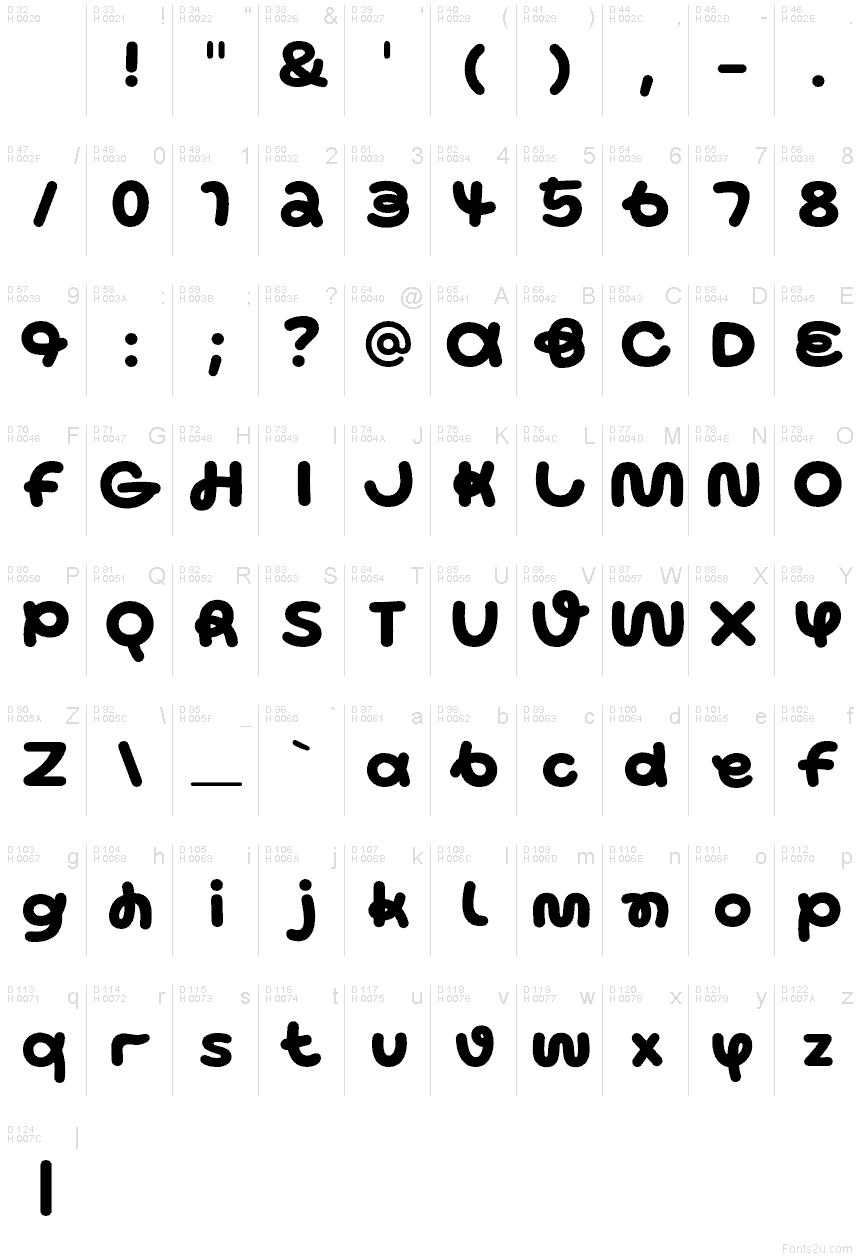
Bauhaus Lace Rnd Display Bold
Bauhaus Lace Rnd Display Bold font by Saskia is a free decorative rounded retro sans typeface. Part of the Bauhaus Lace Rnd Display family, it leans into soft, pillowy geometry—circles tucked into corners, chunky strokes, and playful rhythm that feels both tactile and clean. The forms have a buoyant bounce that reads instantly at a glance while keeping edges friendly and approachable.
Using Bauhaus Lace Rnd Display Bold, titles pop without shouting. This free font shines on posters, packaging, kids’ branding, cafe menus, music flyers, and stickers, where bold shapes and generous curves create upbeat energy. Give it room at larger sizes and add a touch of letter-spacing for headlines. Pair with a simple neo-grotesque for body copy to keep the focus on its bubbly character.